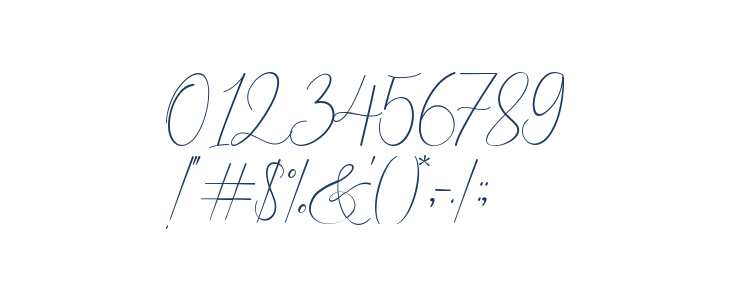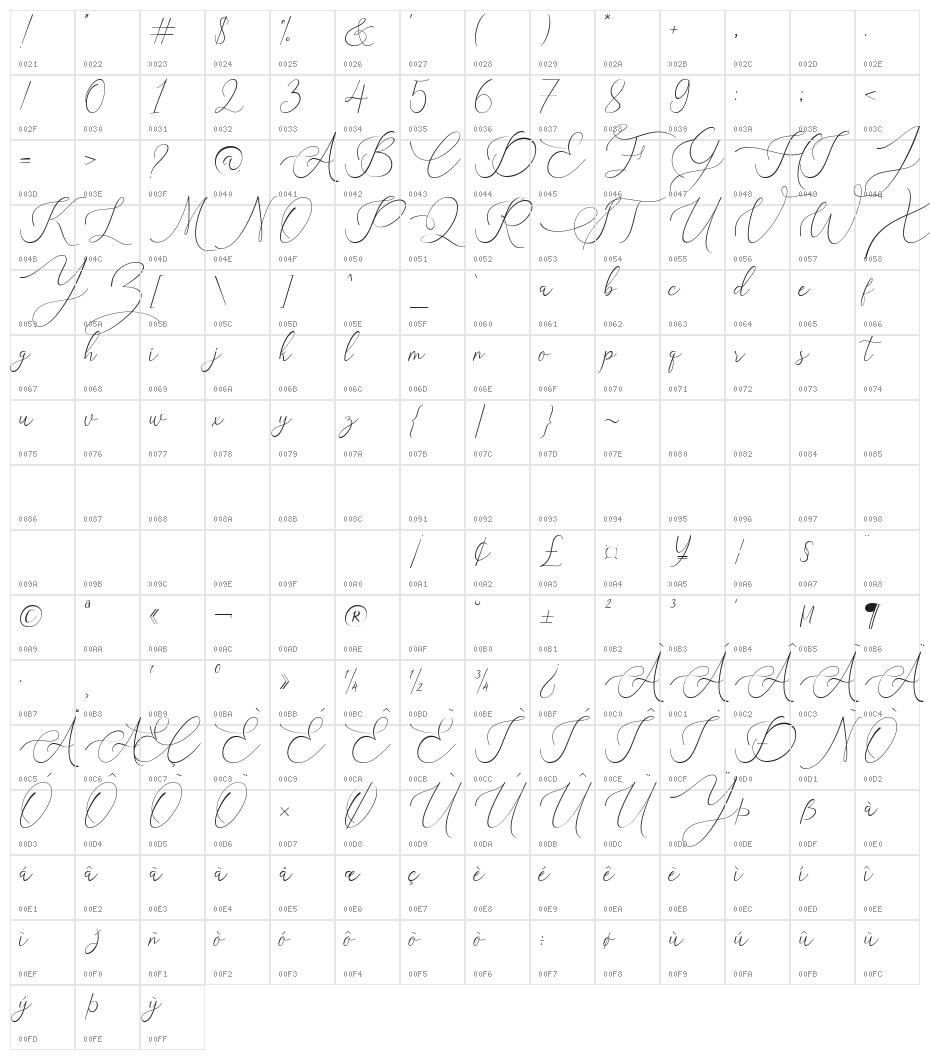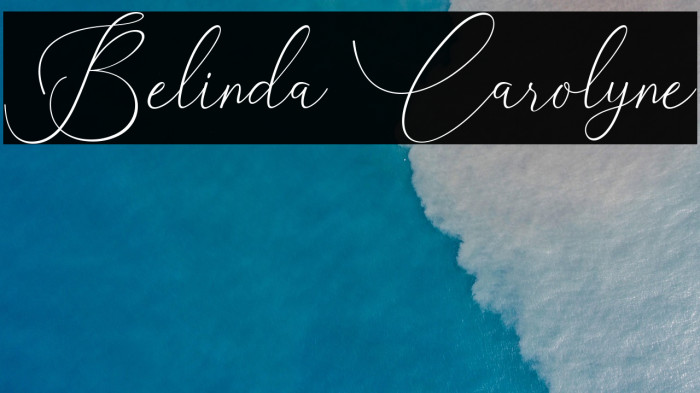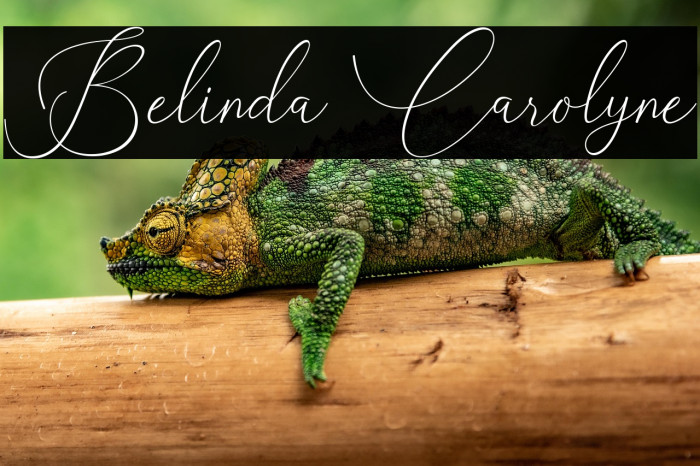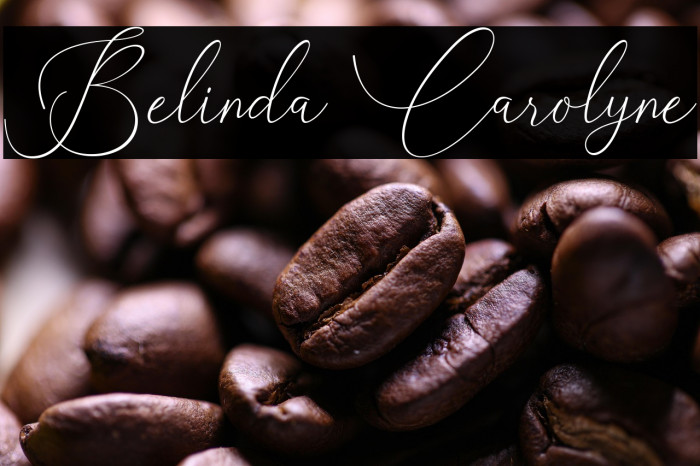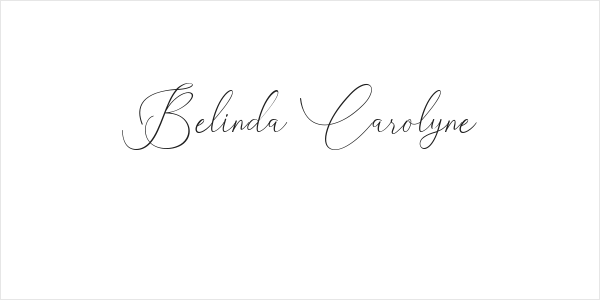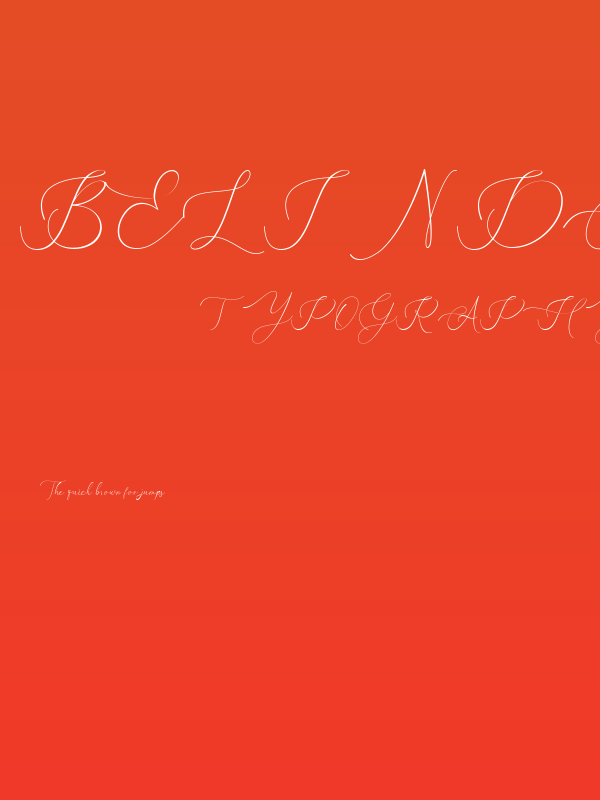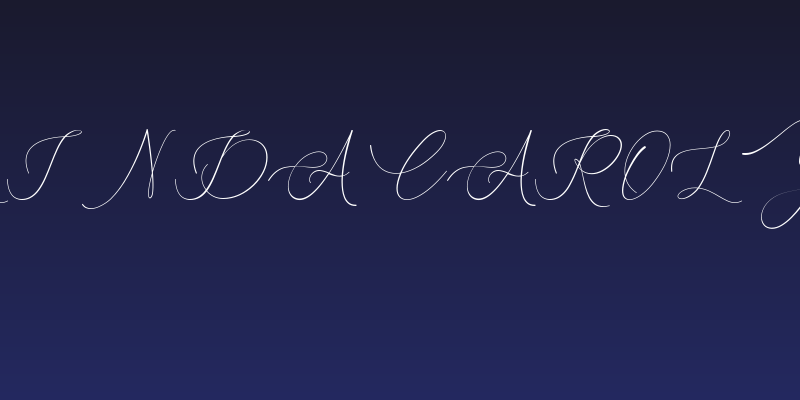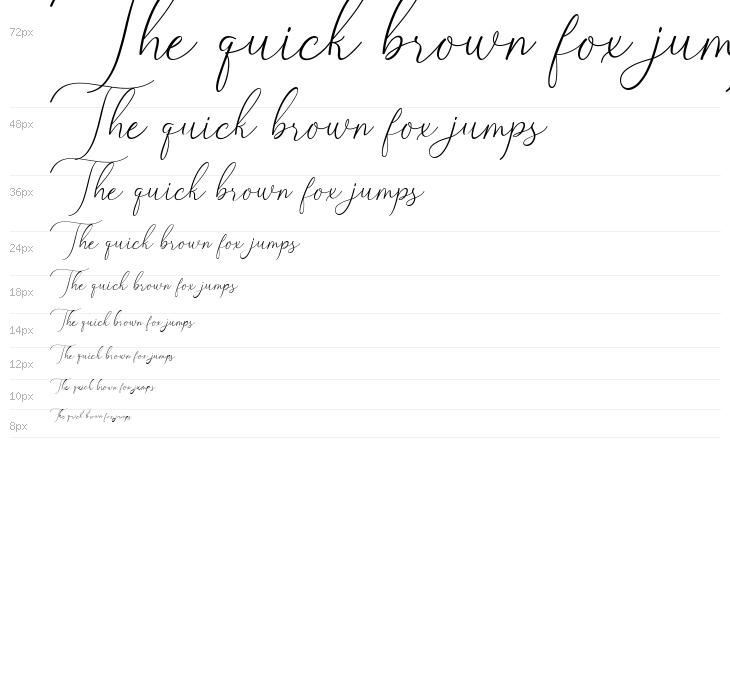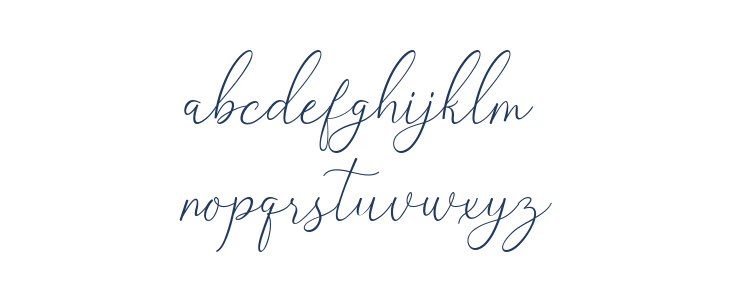
Belinda Carolyne Font
Belinda Carolyne Description
This elegant script font features a delicate and flowing style, characterized by its thin strokes and graceful curves. The uppercase letters are ornate, with intricate loops and swashes that add a touch of sophistication. The lowercase letters maintain a consistent flow, enhancing readability while preserving the font's decorative nature. Numerals and special characters are designed with the same attention to detail, ensuring a cohesive look across all text elements. This font exudes a sense of elegance and refinement, making it ideal for formal invitations, branding, and other projects that require a touch of class.
Overall StyleElegant
Use CaseInvitations, Branding, Stationery
Proposed ProjectsIdeal for wedding invitations, luxury branding, elegant stationery, and high-end product packaging.